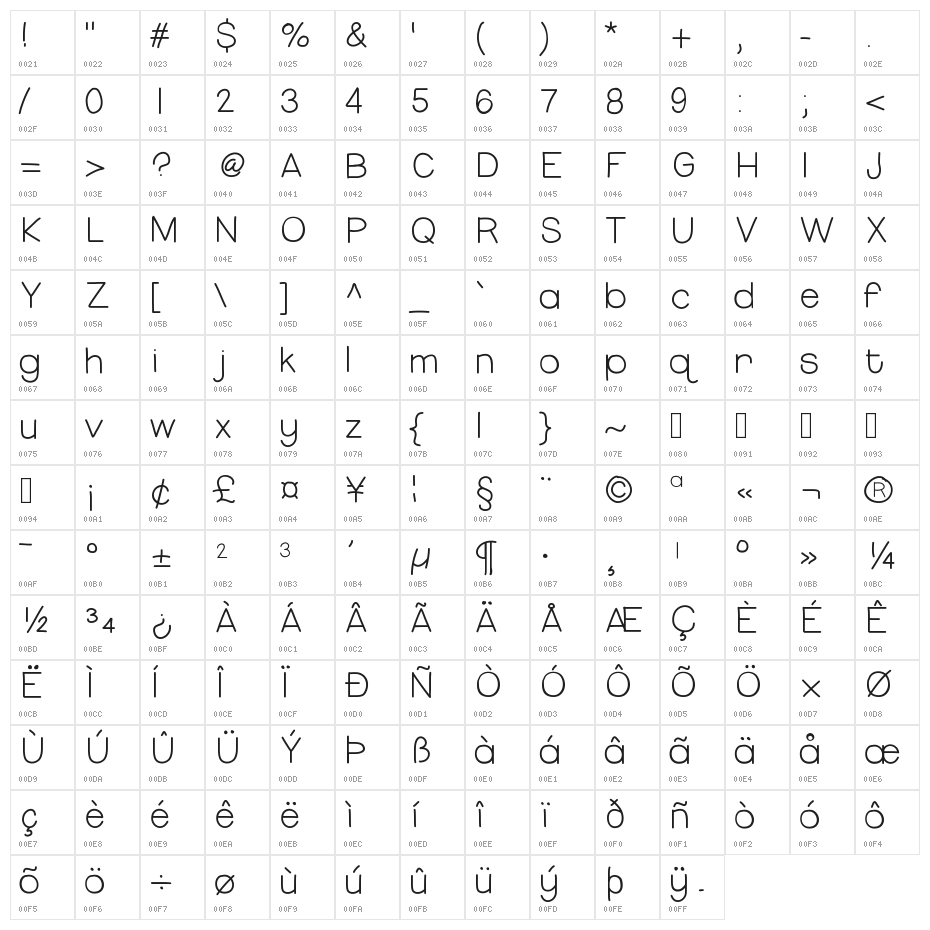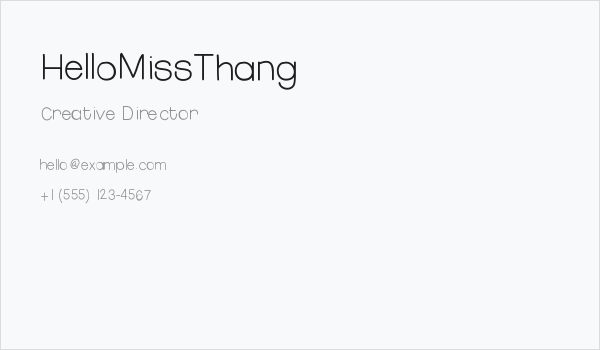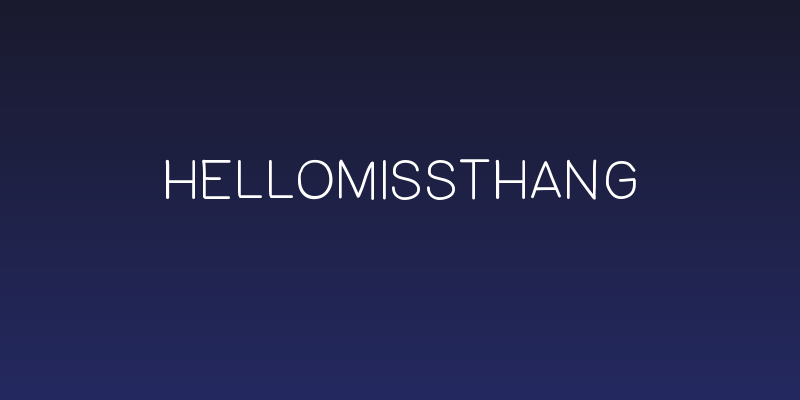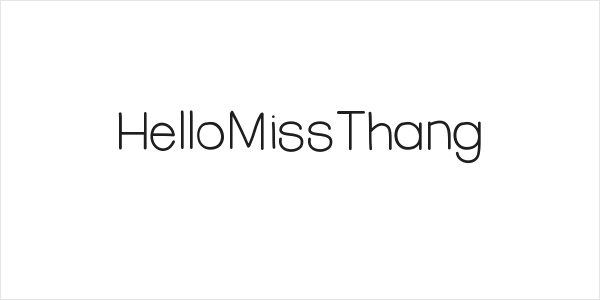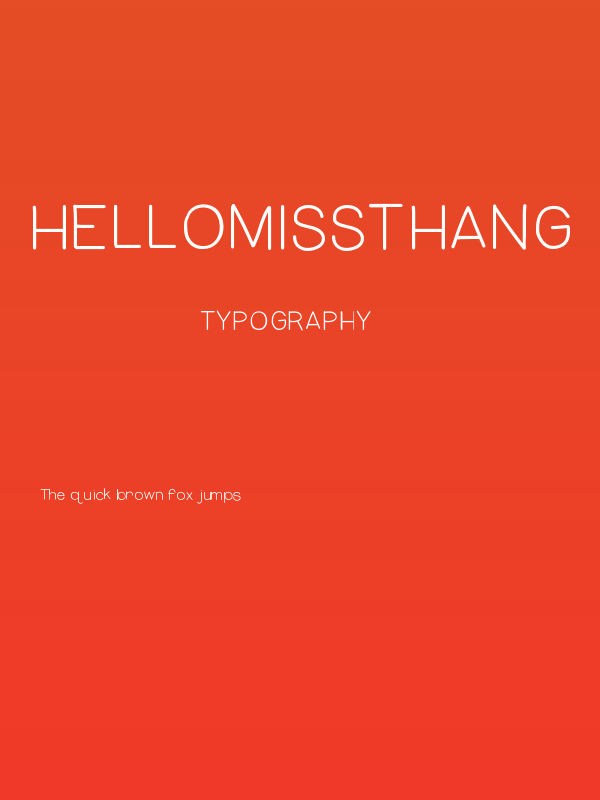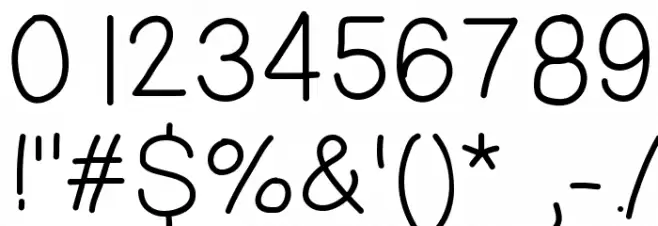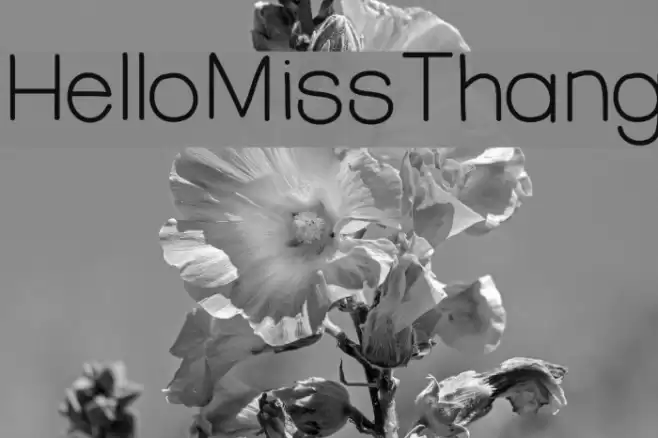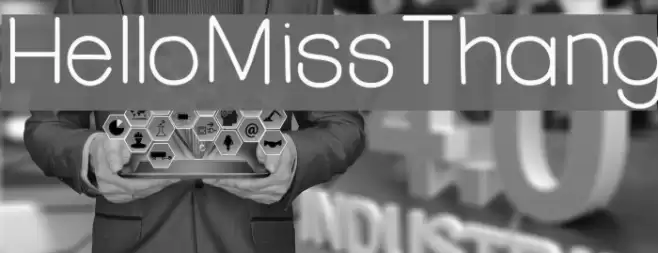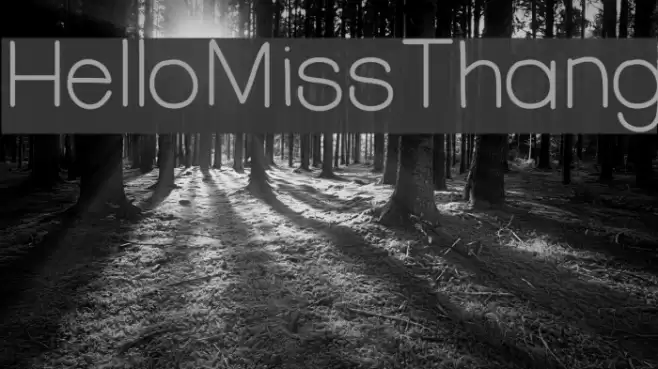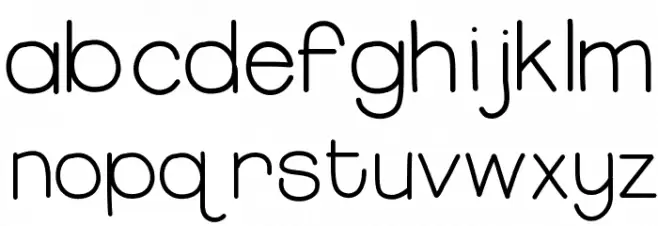
HelloMissThang Font
HelloMissThang Description
This font features a playful and modern design with rounded edges and a clean, minimalist aesthetic. The characters are evenly spaced, providing a balanced and harmonious appearance. The uppercase letters are slightly taller than the lowercase, adding a touch of elegance and readability. The numerals and special characters maintain the same rounded style, ensuring consistency across all elements. This font's simplicity and clarity make it versatile for various applications, from digital to print media.
| Proposed Projects | Ideal for children's books, playful branding, modern websites, and creative posters. |